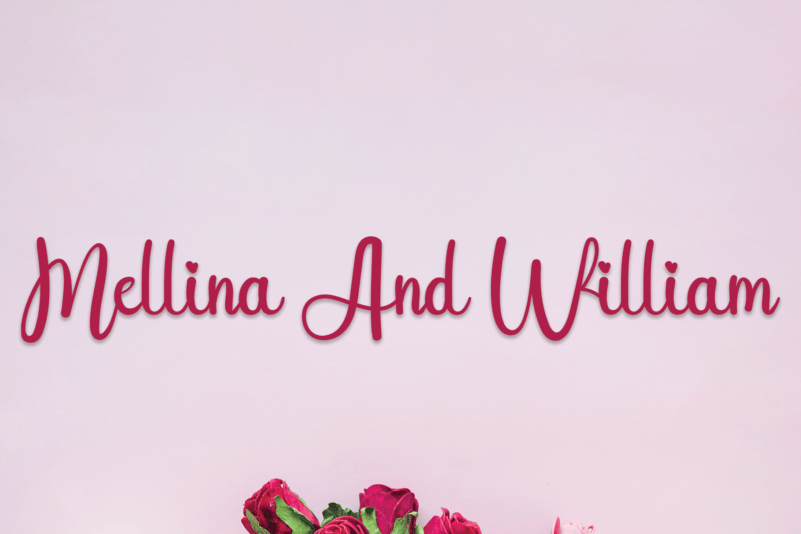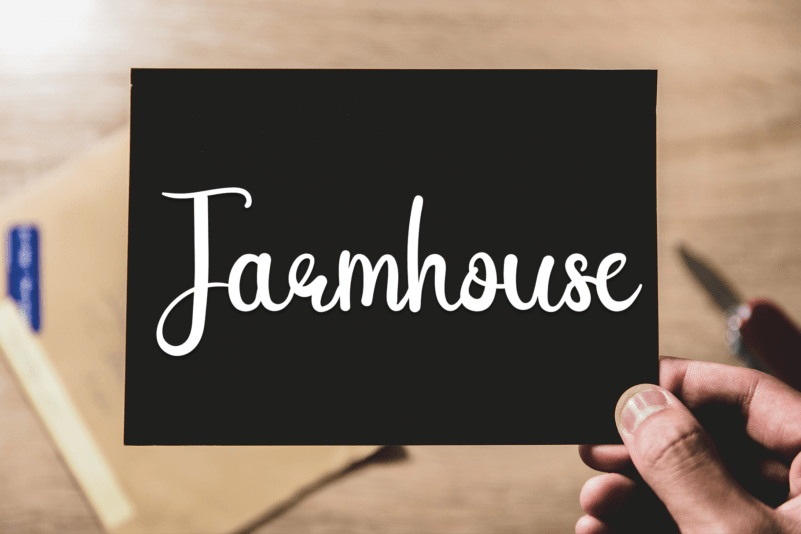
Bright Smile Font
Bright Smile Font is a sweet and friendly handwritten display font. Cute and fun, this font is ideal for writing wedding invitations, cards, or any other design that might need a playful touch!